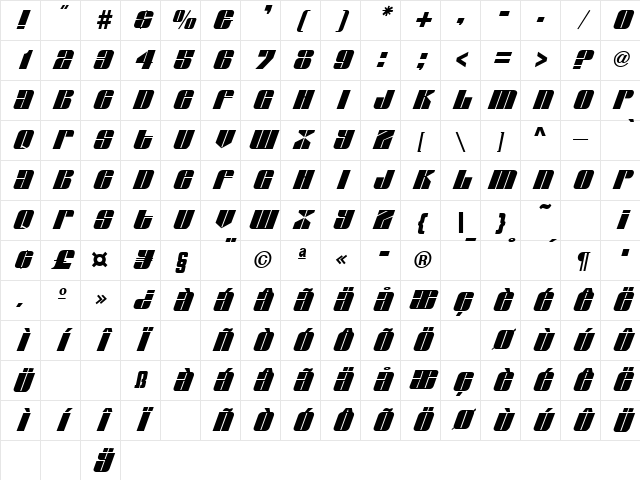
Complete Greyhound SF Regular glyph index. Displaying only characters natively supported by Greyhound SF Regular font.
Greyhound SF is a composed and adaptable typeface that performs quietly and consistently across a wide range of design contexts.